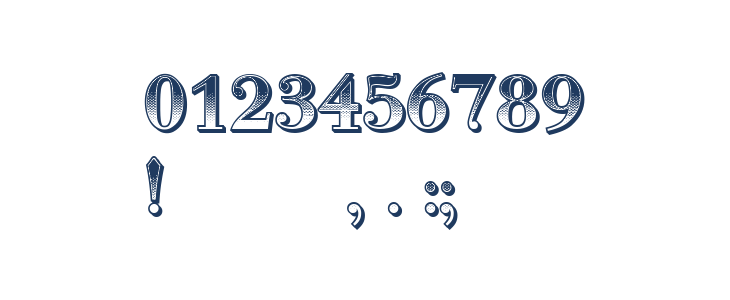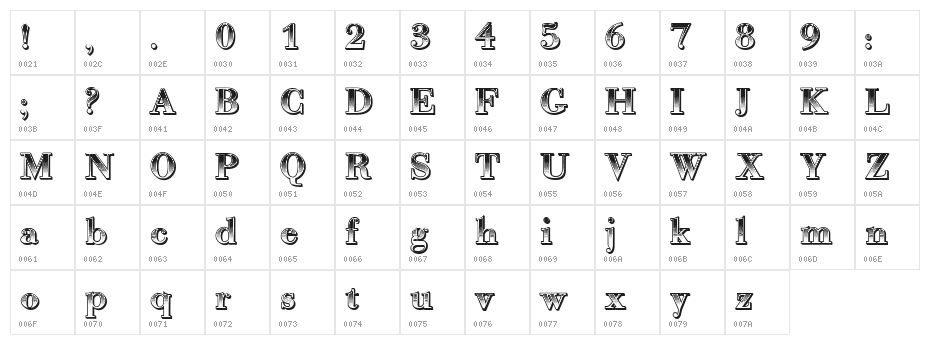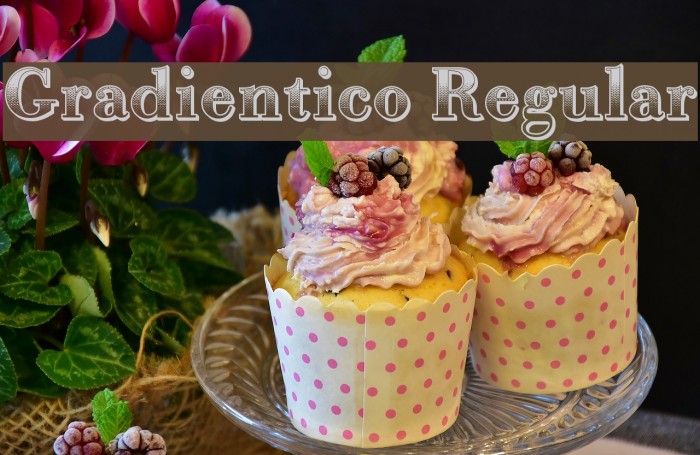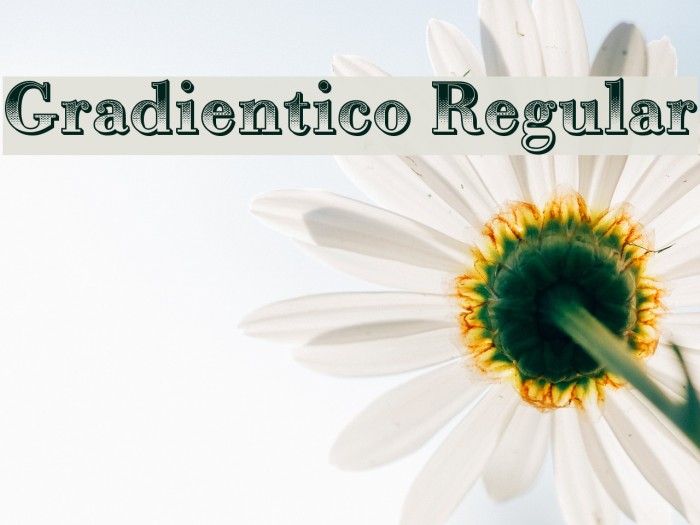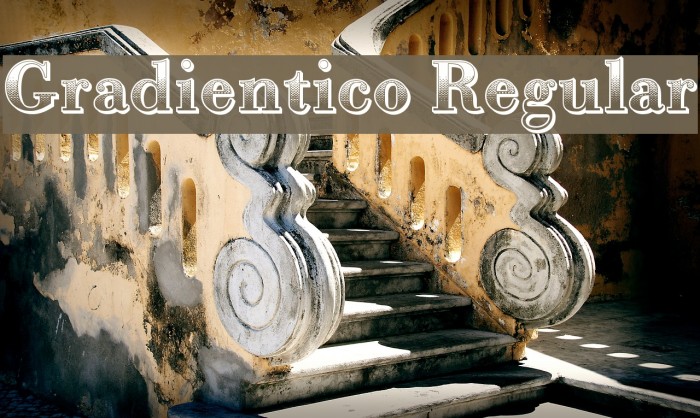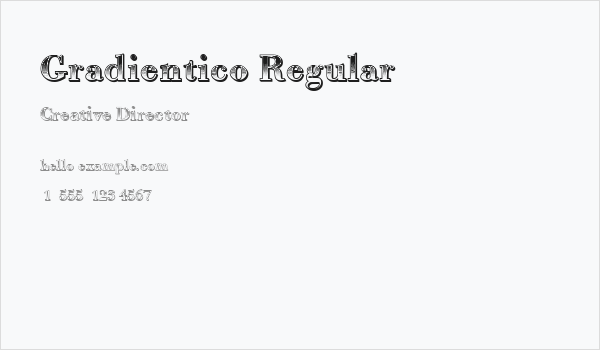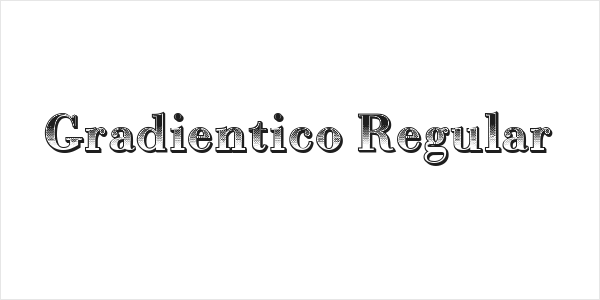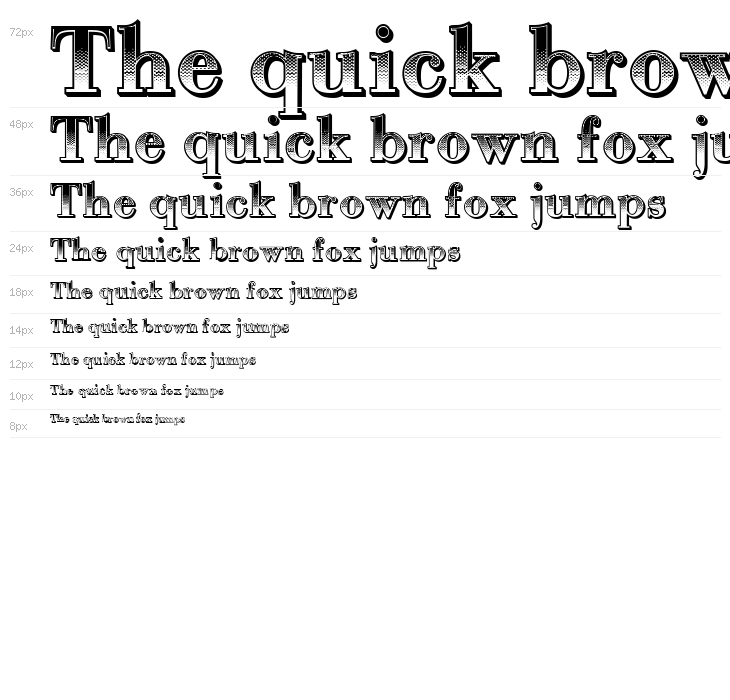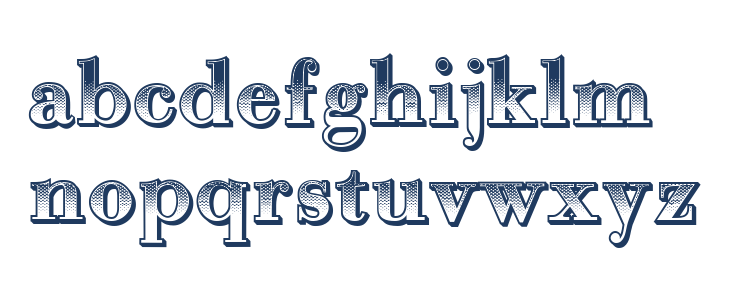
Gradientico Regular Font
Gradientico Regular Description
This font features a bold and decorative style with a unique gradient effect within each character. The uppercase and lowercase letters are designed with a strong presence, making them ideal for attention-grabbing headlines. The numbers and special characters maintain the same decorative style, ensuring consistency across all text elements. The font's intricate design is characterized by a dotted gradient pattern that adds depth and visual interest. Its bold strokes and detailed embellishments make it suitable for projects that require a distinctive and artistic touch.
| Proposed Projects | Ideal for posters, logos, branding materials, and any design requiring a standout, artistic font. |